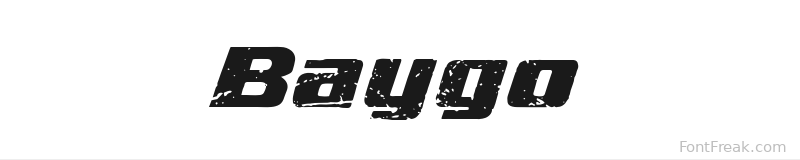
Baygo
About Baygo
Baygo, designed by Syaf Rizal, is a striking display font characterized by its bold, rugged appearance. This sans-serif typeface features a unique blend of thick and thin strokes, creating a dynamic contrast that captures attention. The slightly distressed texture adds a layer of character, making it ideal for designs that require an edgy, modern aesthetic. The letterforms are well-spaced, ensuring readability while maintaining a distinct visual impact.
The versatility of the Baygo font shines through in various applications. It is particularly well-suited for eye-catching movie posters, where its boldness can convey excitement and drama. Additionally, it can elevate restaurant menus, providing a contemporary vibe that resonates with patrons. Graphic designers may find it perfect for branding projects, where a strong visual identity is essential. It can also enhance promotional materials for events, giving a fresh and engaging look to flyers and banners. Small business owners looking to make a memorable impression will appreciate its unique style across various platforms.
Targeting graphic designers, content creators, and small business owners, Baygo offers a perfect solution for those seeking to capture their audience’s attention through typography. Its distinct aesthetic and functionality make it a valuable addition to any designer's toolkit.
What sets the Baygo font apart is its ability to blend boldness with a touch of personality, allowing it to stand out in a crowded marketplace. Whether you're creating a captivating design for a special event or seeking to enhance your brand's identity, the Baygo font free download provides an excellent resource for those looking to make a lasting impression. Embrace its unique flair and let your creativity flourish with this standout typeface.